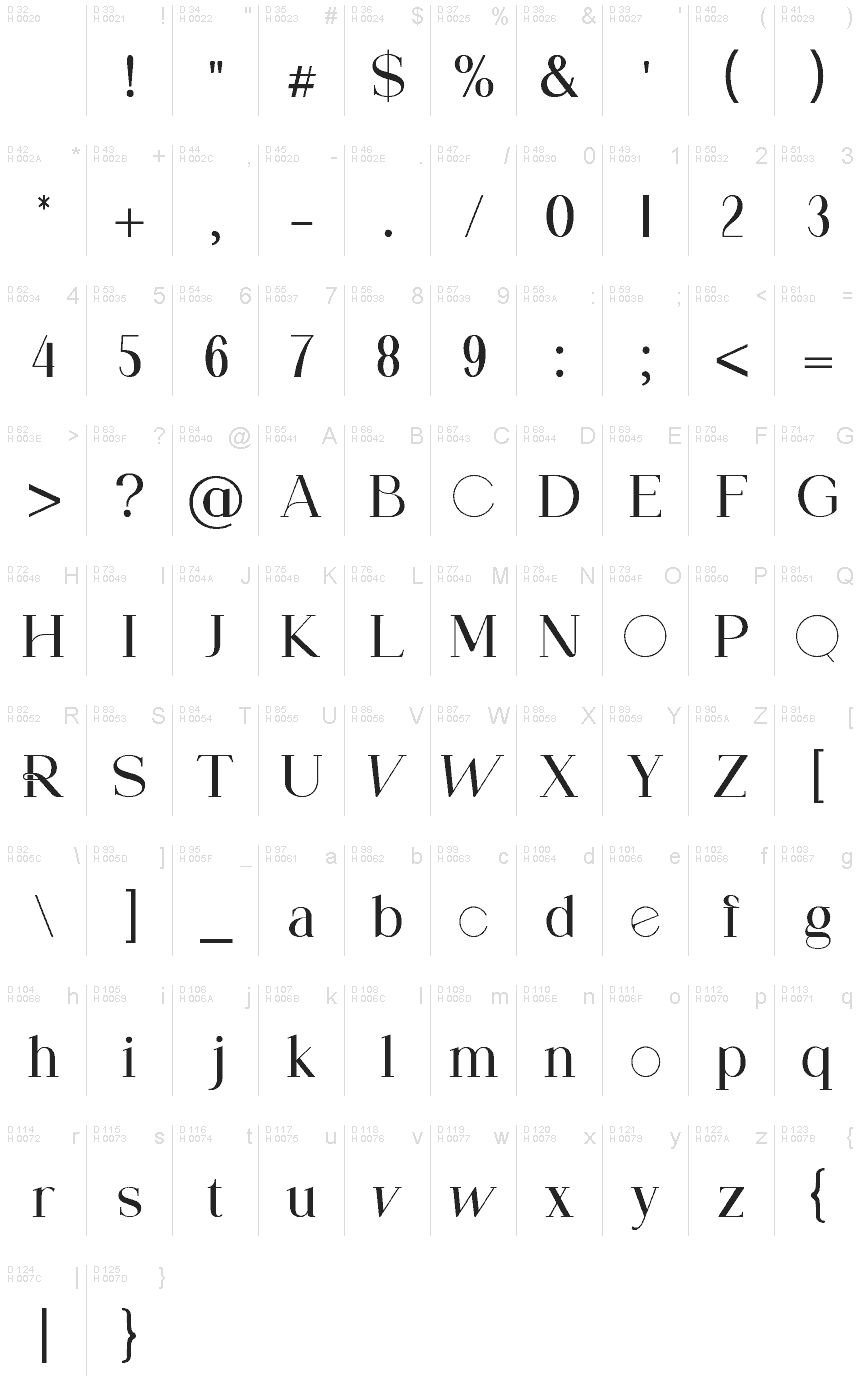
ChairmanButchier Regular
Chairman Butchier font is a free serif font by UI Creative that combines elegance with sophistication resulting in a flawless design. Classic at its core, it still presents modern touches exemplified via its minimalist style and high-end visual appeal.
All the possible uses for this tool guarantee it to be every designer’s first choice with software designs, UX and UI editing, website/blogs headlines or logos, magazine articles/print media typographic needs, branding/advertising projects aims.